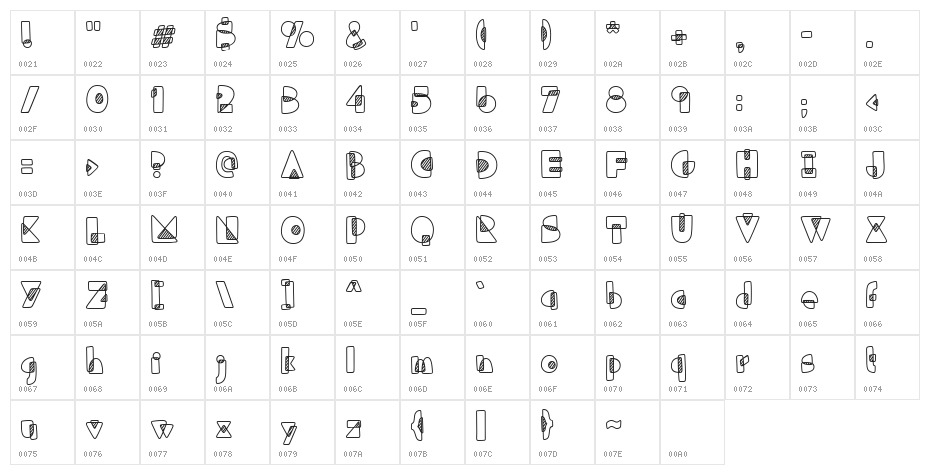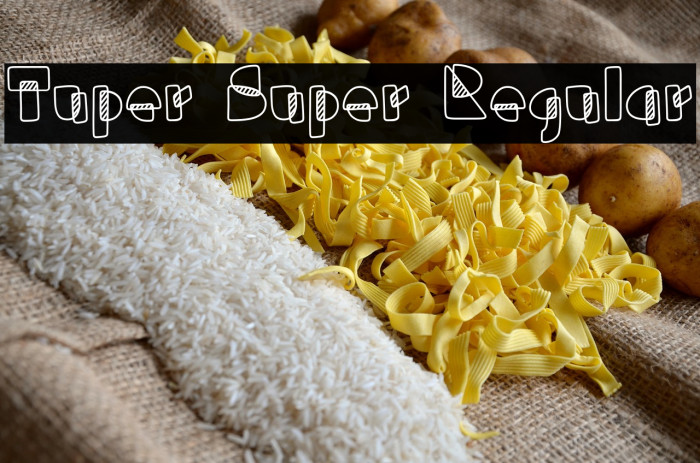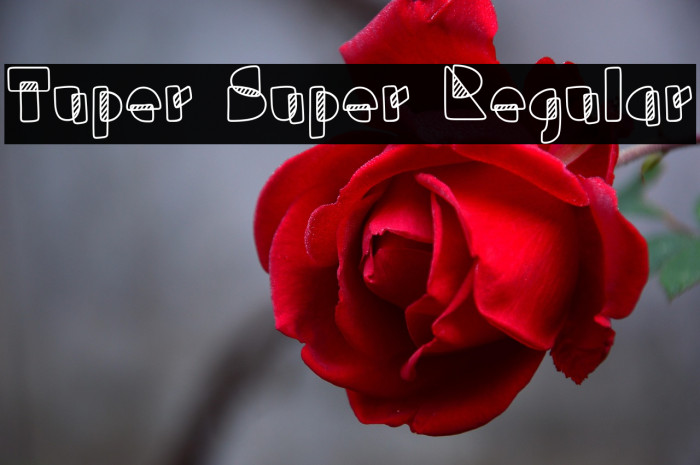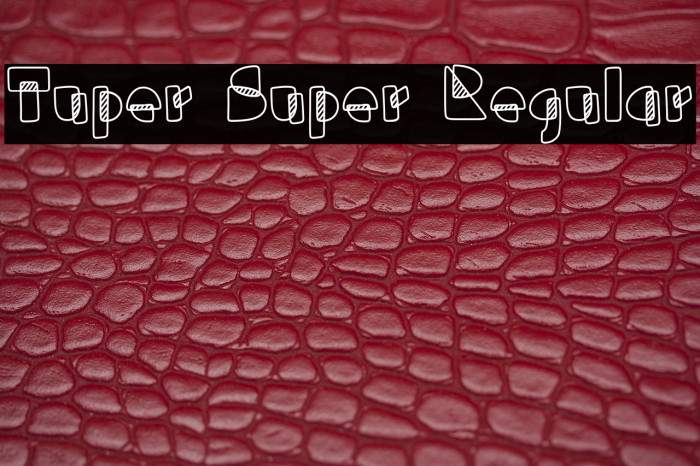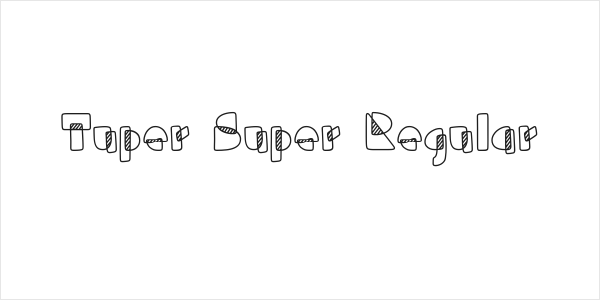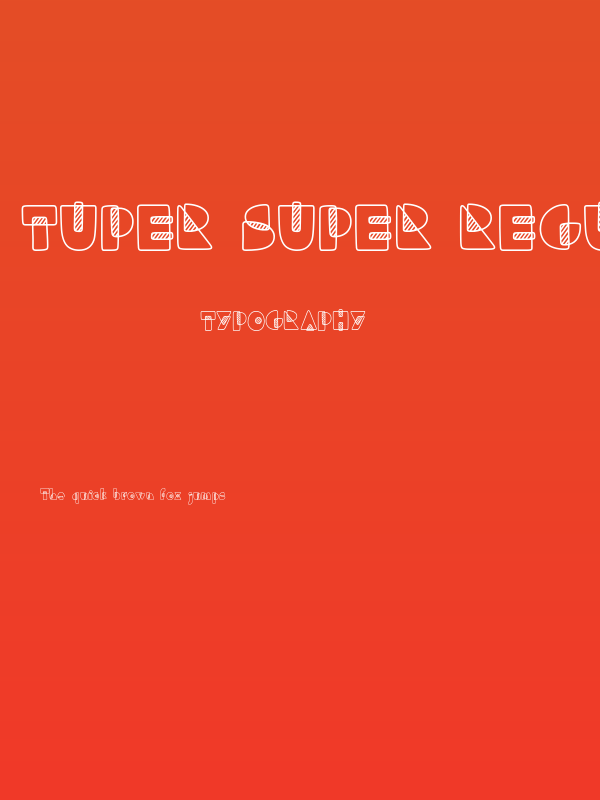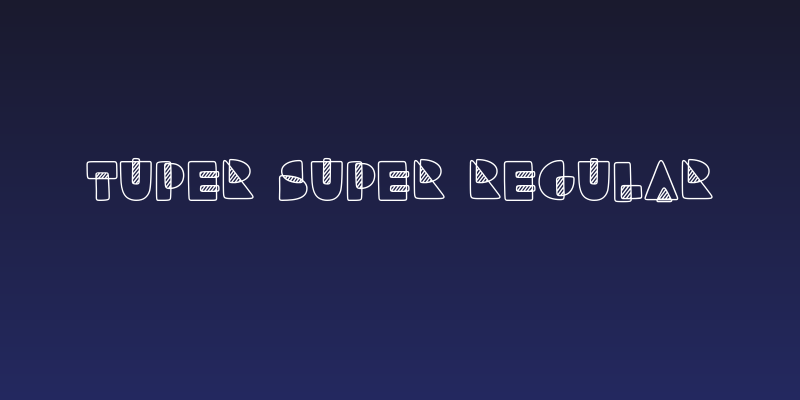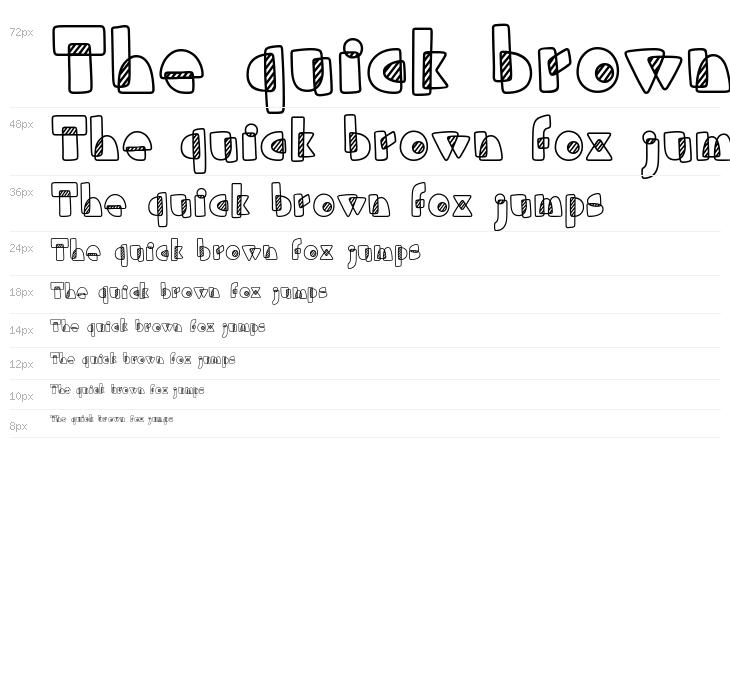
Tuper Super Regular Font
Tuper Super Regular Description
This font features a playful and geometric design, characterized by bold outlines and unique patterns within each character. The letters are constructed with a mix of solid and striped sections, creating a dynamic and eye-catching appearance. The uppercase and lowercase letters maintain a consistent style, with rounded edges and a slightly condensed form. Numbers and special characters follow the same design principles, ensuring uniformity across the font. This font's distinct style makes it suitable for creative and informal applications.
| Proposed Projects | Ideal for children's books, playful branding, posters, and creative digital content. |